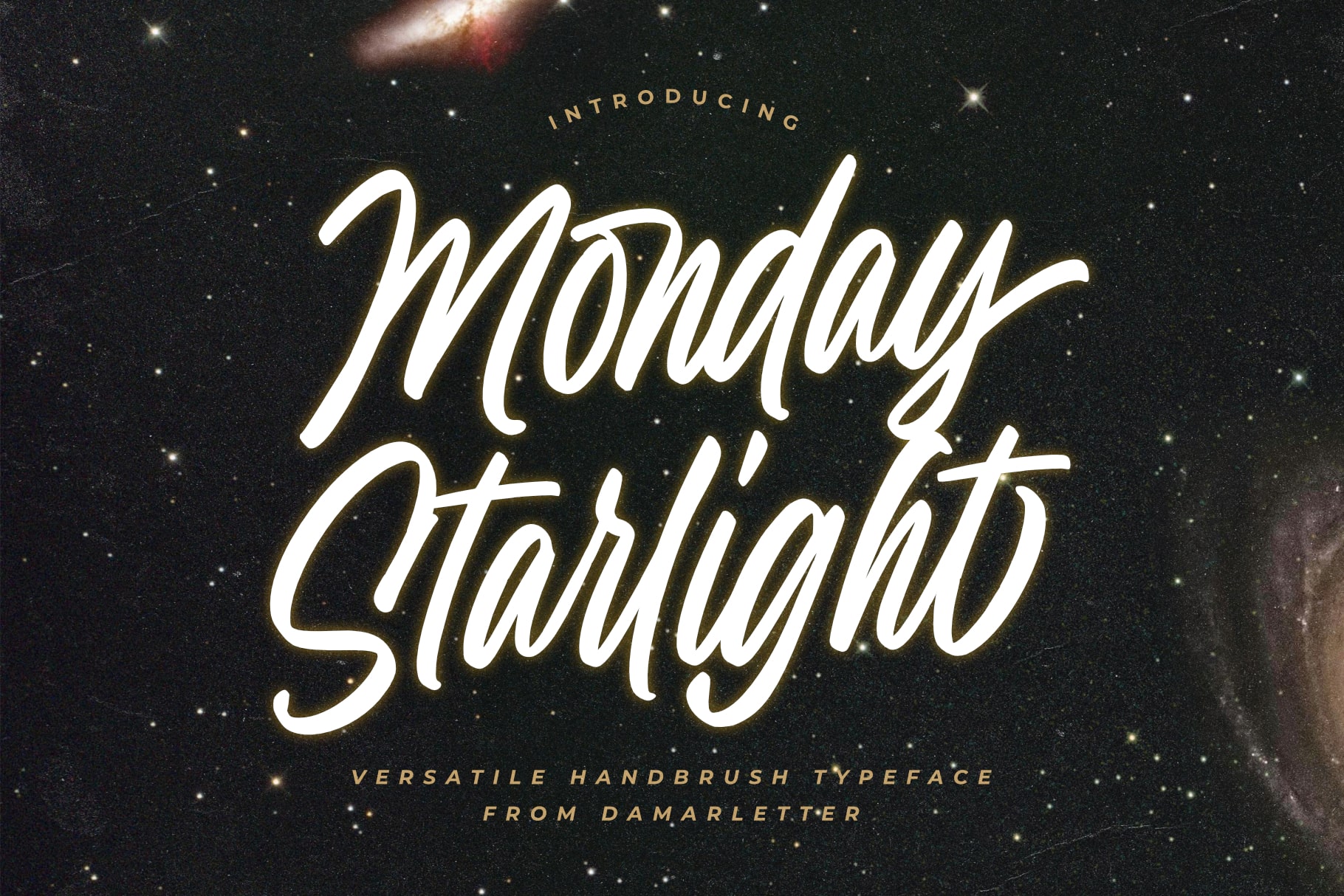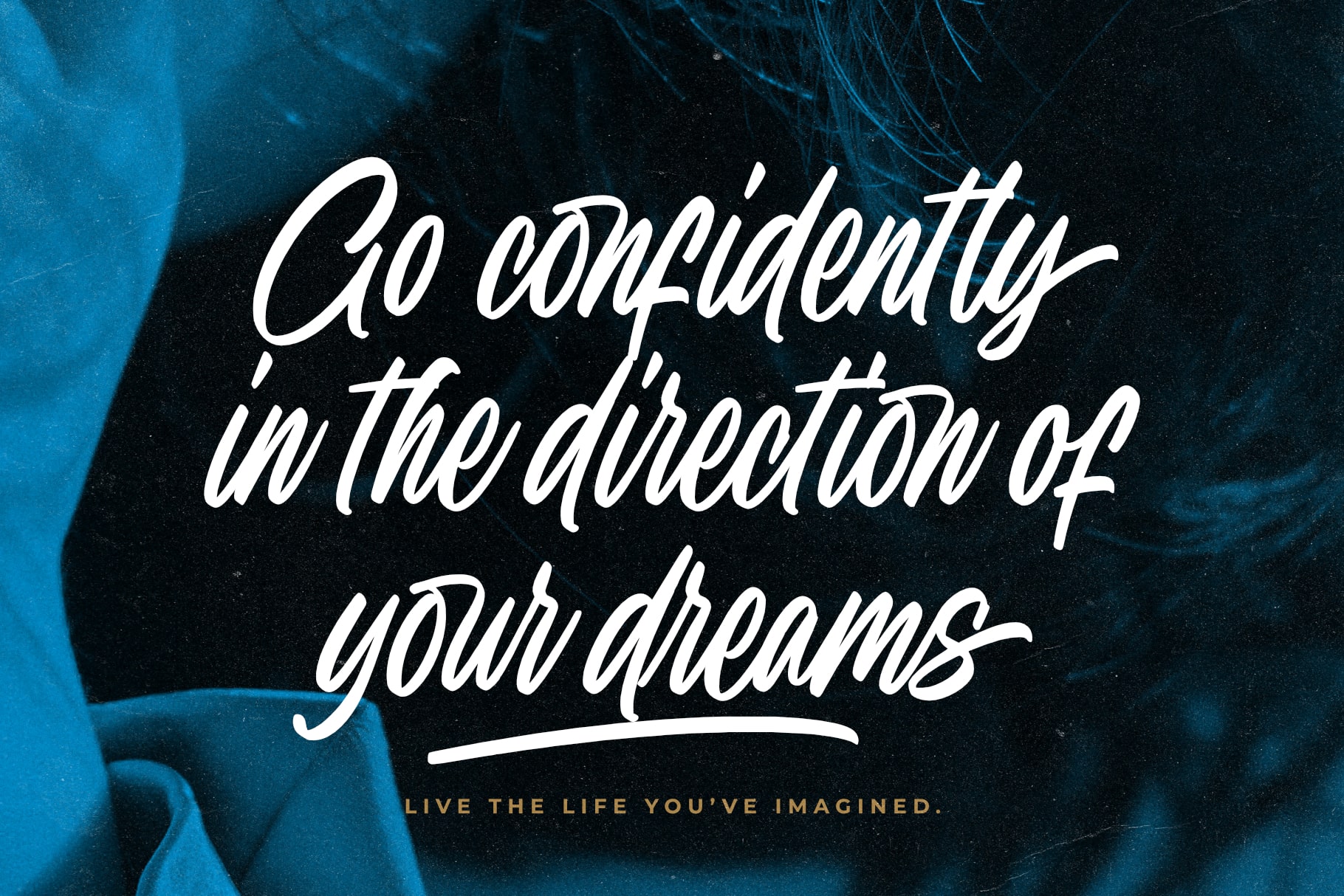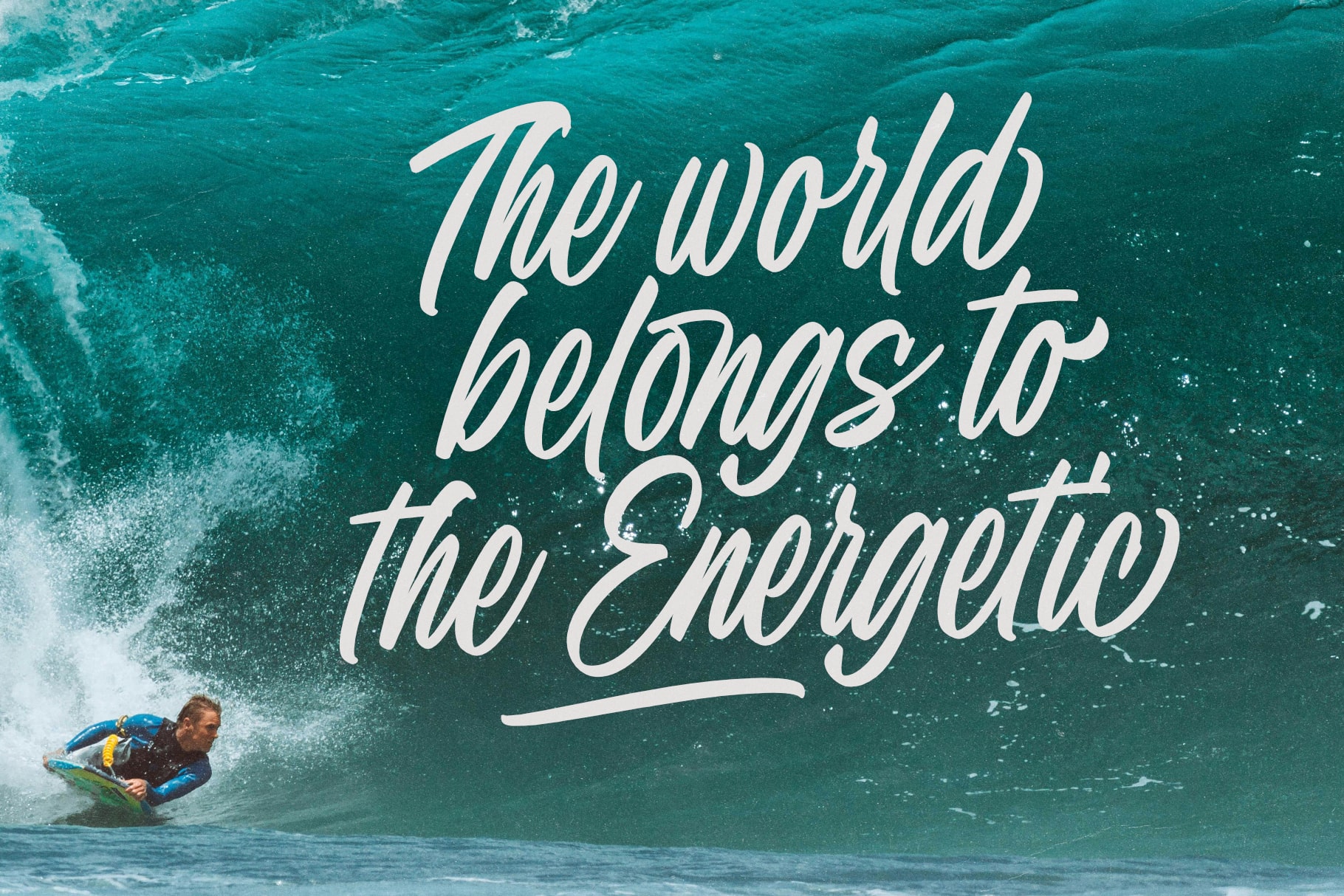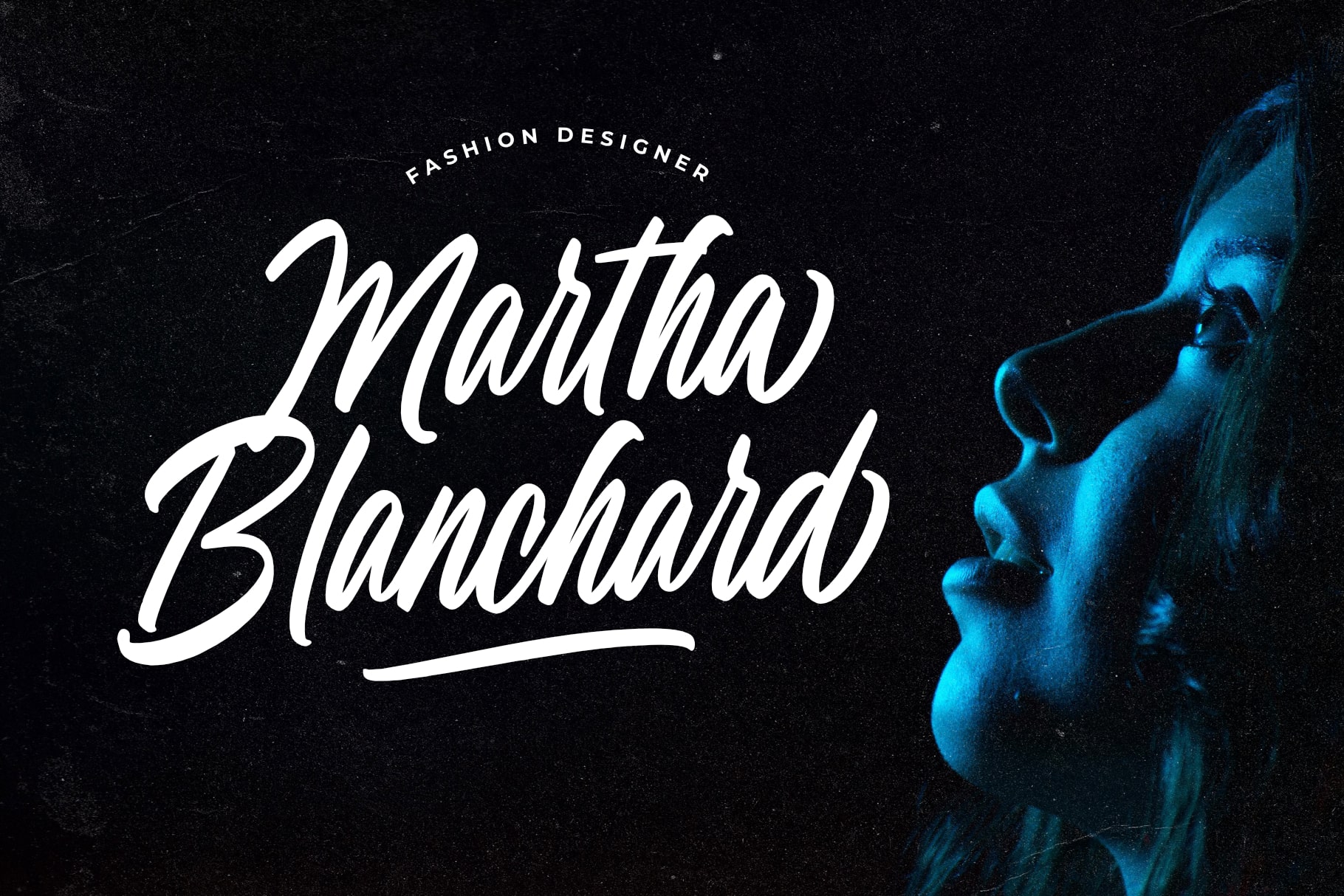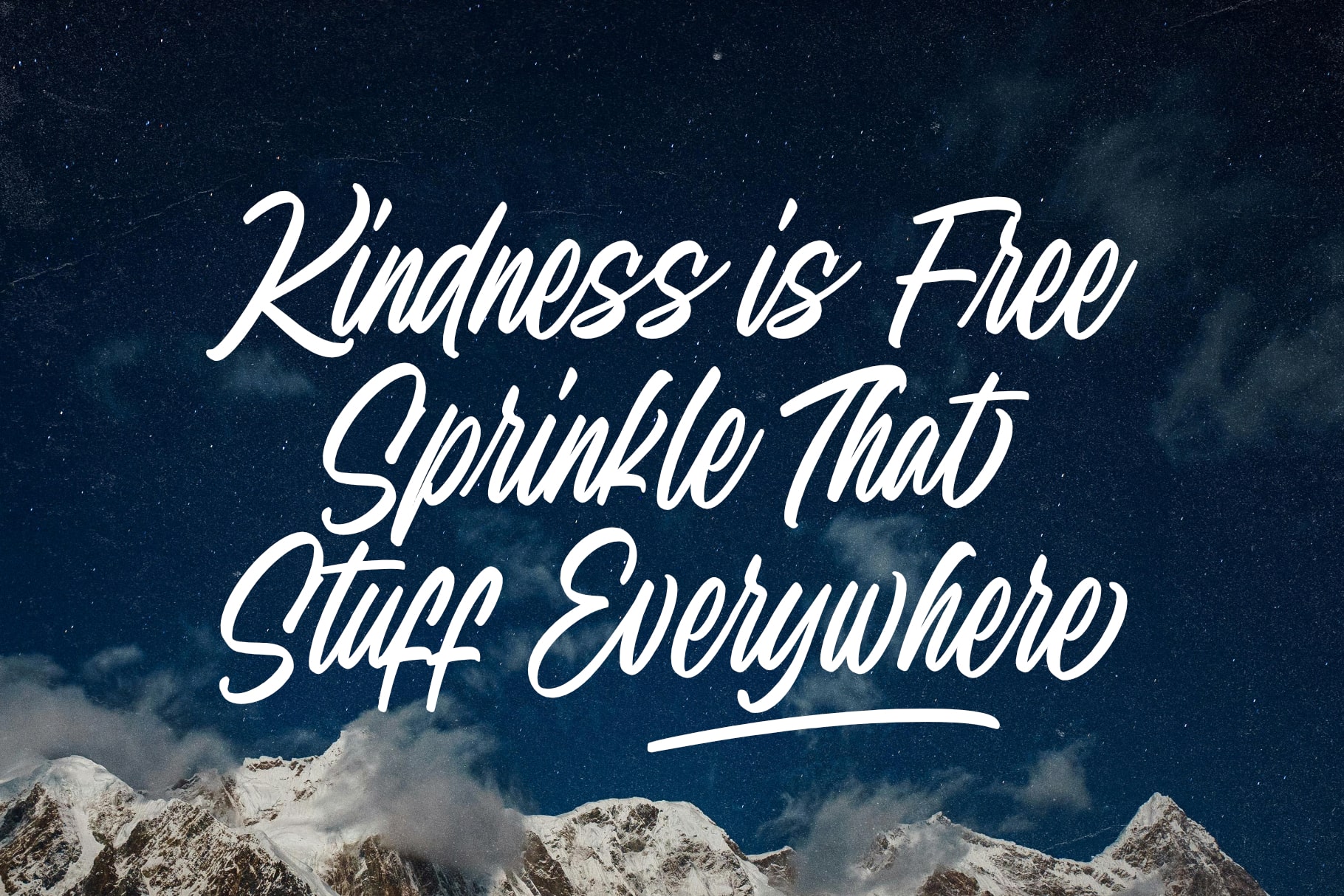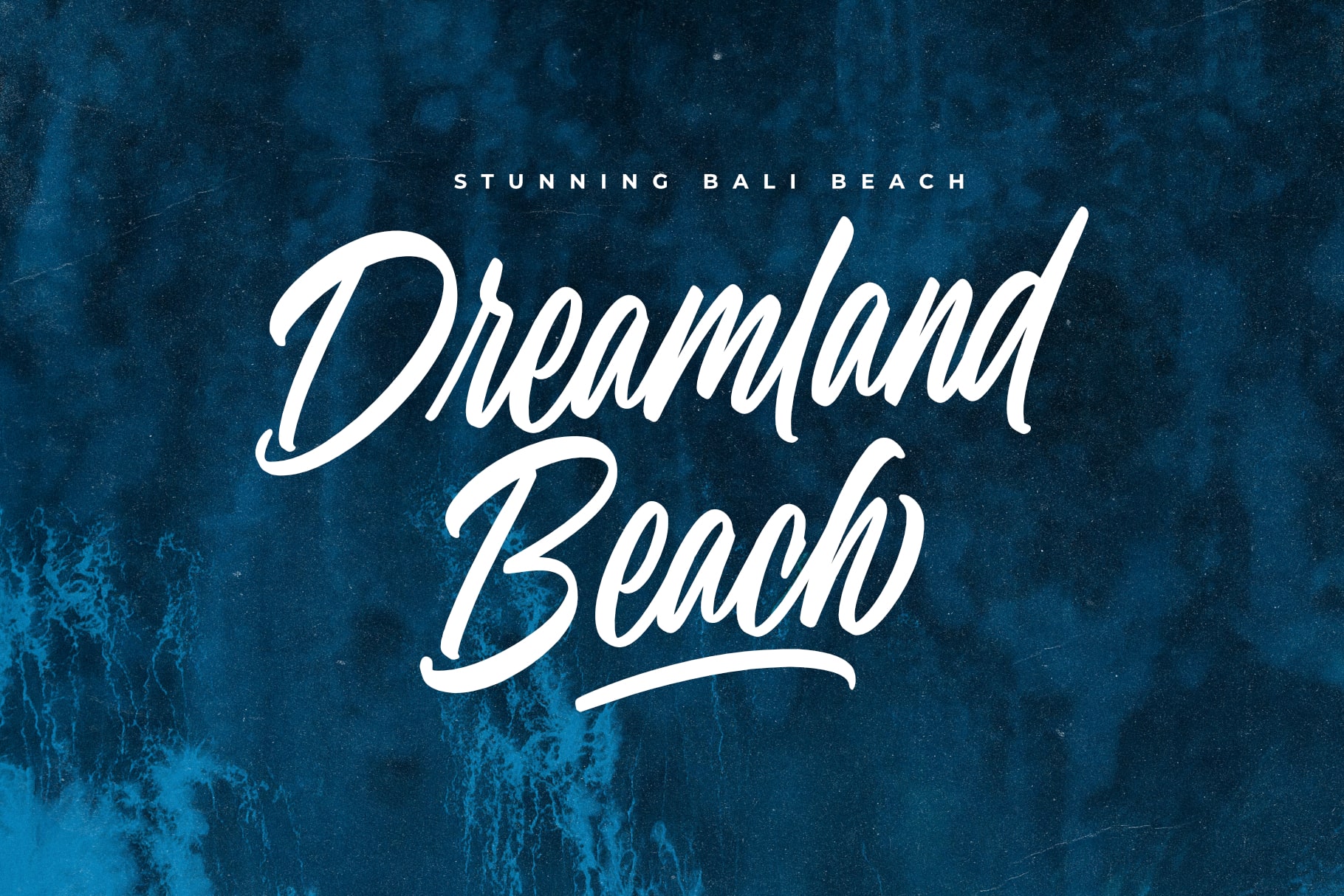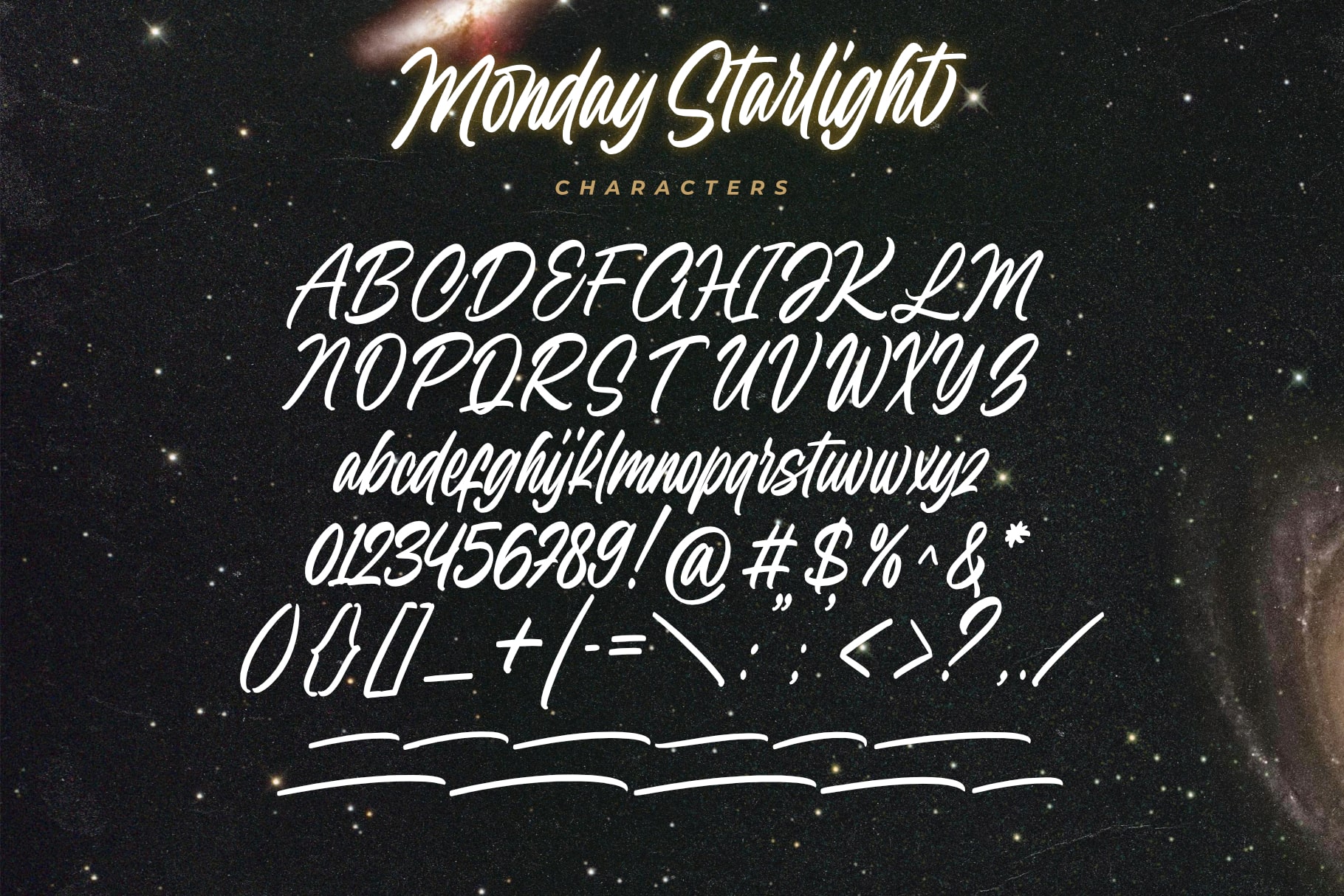
Monday Starlight
byDamar Letter
Monday Starlight is a versatile handbrush typeface that shines bright like a star, perfect for adding a touch of creativity and personality to your designs.